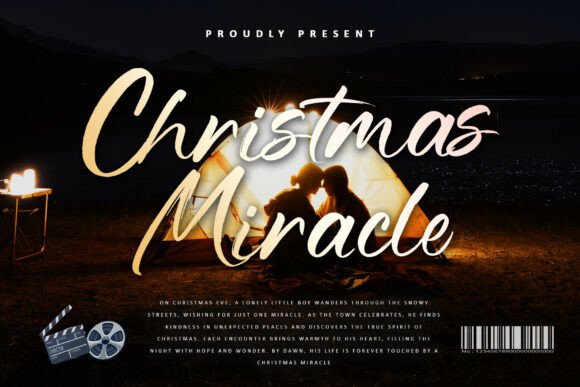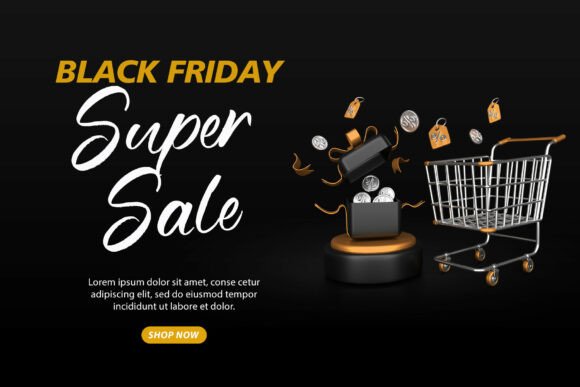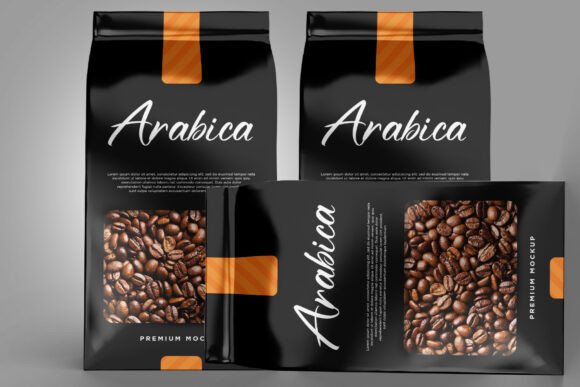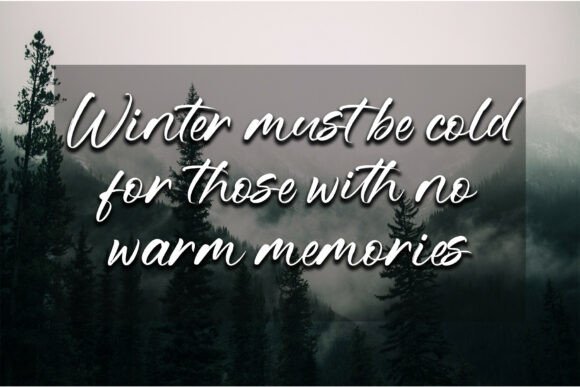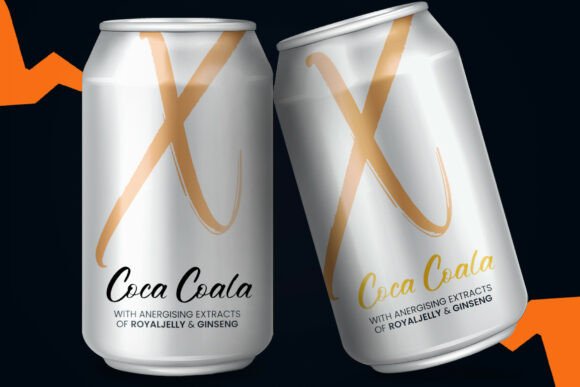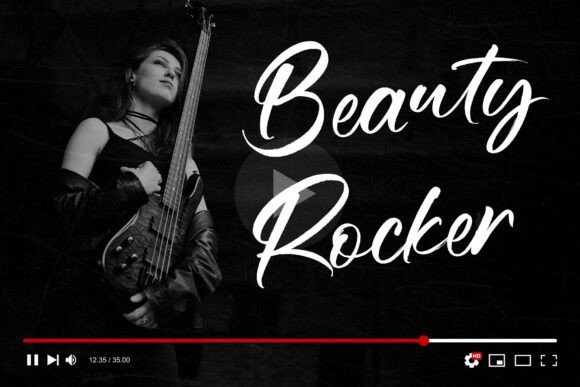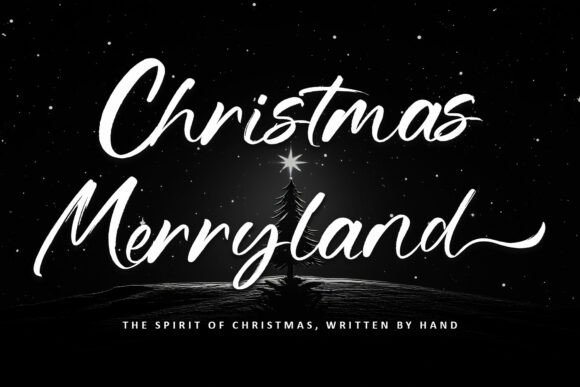
Introducing Christmas Merryland Font: The Ultimate Festive Brush Handwritten Font
Are you looking for a font that captures the warmth and spirit of the holiday season? Look no further than Christmas Merryland, a festive brush handwritten font that is sure to bring joy and magic to your Christmas projects. With its natural brush touch, bold energy, and handmade charm, this font is perfect for designers and crafters who want to add a personal touch to their holiday designs.
A Festive Font with a Personal Touch
Christmas Merryland is a brush handwritten font that is designed to feel authentic and joyful. Each stroke is painted with a natural brush touch, giving it a slightly rough texture and flowing movement that brings a cheerful, organic look to your designs. This font is perfect for creating posters, packaging, greeting cards, branding, and seasonal crafts that require a personal touch.
Key Features of Christmas Merryland Font
• Festive and Fun: Christmas Merryland is designed to capture the warmth and spirit of the holiday season, making it perfect for Christmas projects.
• Natural Brush Touch: Each stroke is painted with a natural brush touch, giving it a handmade charm that feels authentic and joyful.
• Versatile: Christmas Merryland is perfect for a variety of projects, including posters, packaging, greeting cards, branding, and seasonal crafts.
Why Choose Christmas Merryland Font?
There are many reasons why Christmas Merryland font stands out from other festive fonts. Here are a few:
• Unique and Creative: Christmas Merryland has a unique and creative look that will make your designs stand out from the crowd.
• High-Quality: Christmas Merryland is a high-quality font that is designed to produce stunning results.
How to Use Christmas Merryland Font
Using Christmas Merryland font is easy. Here are a few tips:
• Pair it with Other Fonts: Christmas Merryland looks great when paired with other fonts, such as sans serif fonts or script fonts.
• Experiment with Colors: Try experimenting with different colors to find the perfect combination for your design.
• Use it for Holiday Projects: Christmas Merryland is perfect for holiday projects, such as Christmas cards, posters, and packaging.
Bring the Festive Vibe to Your Work
Christmas Merryland font is more than just a font – it’s a way to bring the festive vibe to your work. With its bold energy and handmade charm, this font is sure to add life and personality to your designs. So why settle for a boring, generic font when you can use Christmas Merryland to create designs that feel alive, creative, and full of holiday magic?
Whether you’re a designer, crafter, or DIY enthusiast, Christmas Merryland font is the perfect choice for anyone looking to add a personal touch to their holiday designs. So go ahead, get creative, and bring the festive vibe to your work with Christmas Merryland font.